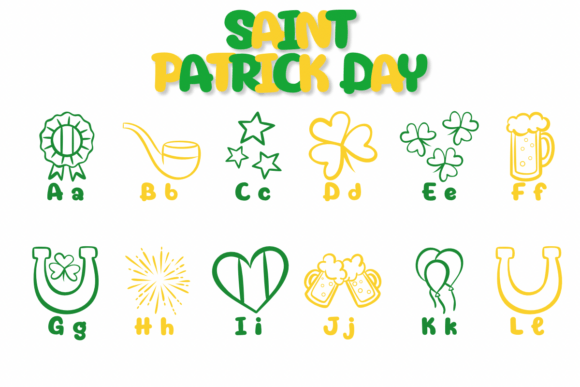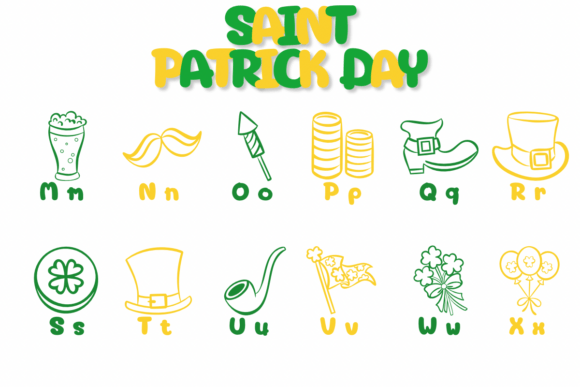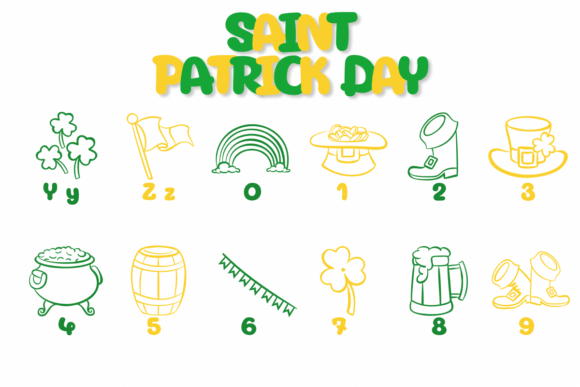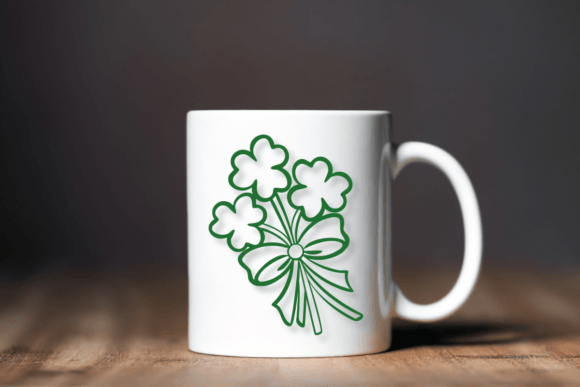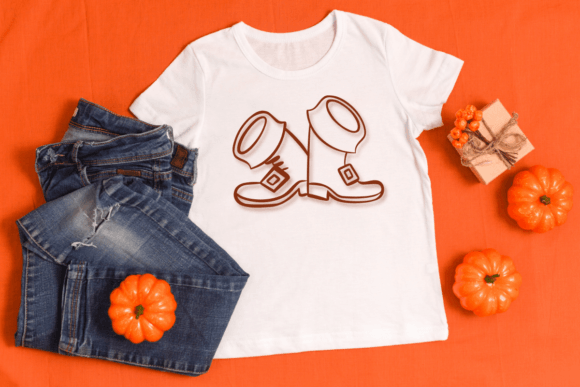
Introduction to Saint Patrick Day Font
Saint Patrick Day Dingbats Font is a delightful collection of festive icons that capture the spirit of Irish celebrations.
From shamrocks and leprechaun hats to mugs of beer and pots of gold, this font is perfect for creating party invitations, holiday decorations, and themed designs for Saint Patrick’s Day Add a whimsical Irish charm to your projects.
Key Features of Saint Patrick Day Font